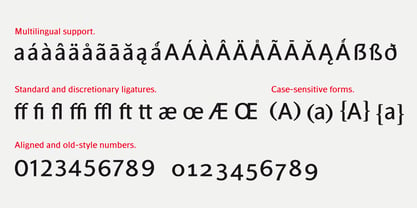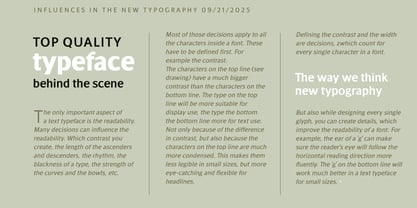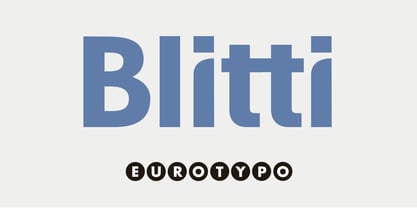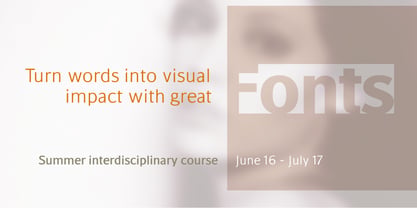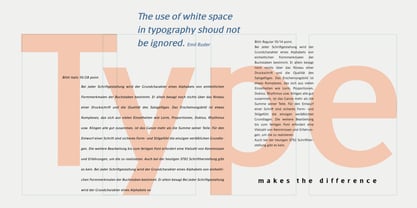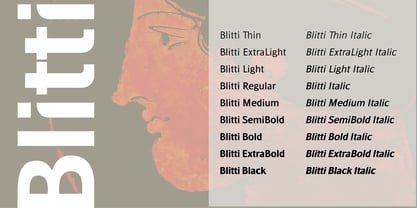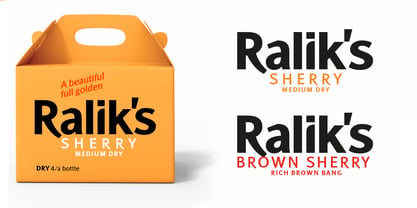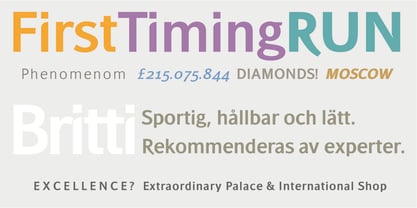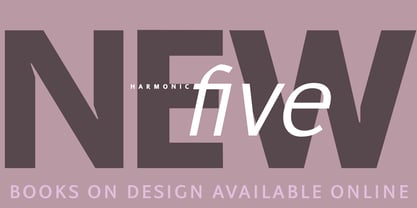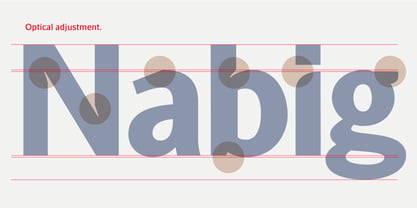
Blitti
Die Schriftfamilie Blitti wurde von Olcar Alcaide entworfen und von Eurotypo veröffentlicht. Blitti enthält 18 Stile und Familienpaketoptionen. Mehr über diese Familie
Blitti is a modern sans serif type family designed with clarity and simplicity in mind. Every detail has been carefully refined to remove unnecessary elements, resulting in a clean, functional, and versatile design.
Its short ascenders and descenders create a generous x-height, improving readability and making the typeface especially effective in text sizes and space-conscious layouts. Combined with balanced proportions, precise optical adjustments, and carefully crafted spacing, Blitti delivers a clear, stable reading experience across a wide range of applications. With its neutral yet distinctive personality, Blitti adapts easily to branding, editorial design, user interfaces, corporate communication, data visualization, and digital products.
Blitti is a reliable everyday typeface that combines precision, consistency, and timeless simplicity, making it an essential tool for contemporary design.